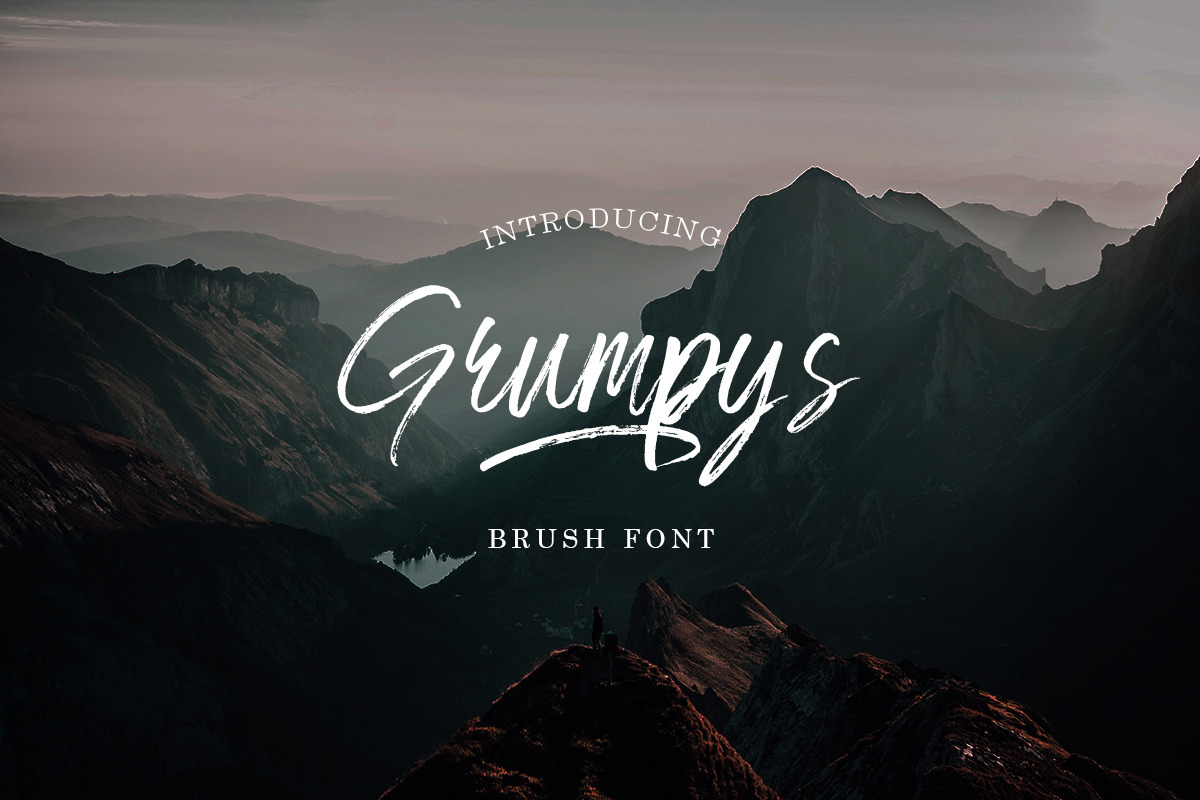
Introducing, Grumpys Script Typeface with brush effect. give your design with touch of Brush Effect. this typeface is handmade lettering with vector editing.Grumpys is suitable for various design projects like Card, T-Shirt, Apparel,Stationary,Book Template, and many more.